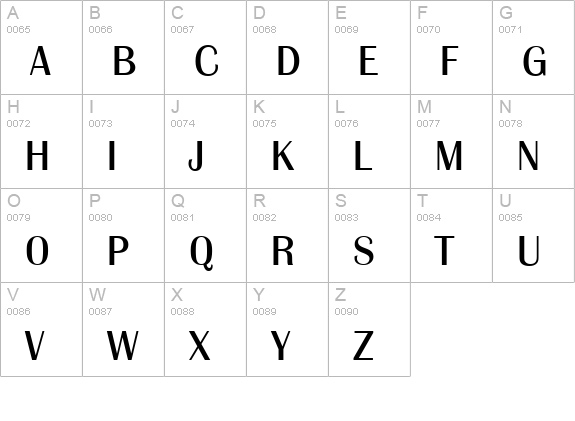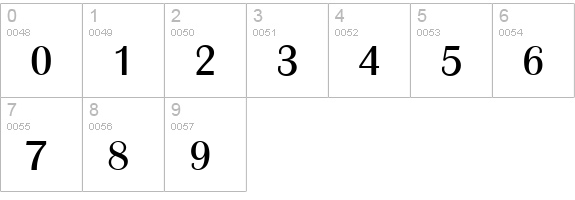
GrenobleSerial-Regular Font Details
GrenobleSerial-Regular is the standard, neutral variant in the GrenobleSerial typeface family \xE2\x80\x94 well suited to general body text, paragraphs, and standard typographic work.
GrenobleSerial-Regular is a stylish and versatile font that exudes modernity and sophistication. With its clean lines and contemporary aesthetic, this font is perfect for a wide range of design projects, from branding to editorial design. The sleek and elegant letterforms of GrenobleSerial-Regular add a touch of class to any composition, making it a popular choice among designers looking to elevate their work. This font is not only aesthetically pleasing, but also highly legible, making it suitable for a variety of applications. Whether you're designing a logo, creating a poster, or working on a website, GrenobleSerial-Regular is sure to make a statement. Best of all, GrenobleSerial-Regular is available for free download at FontsMarket.com. This means that you can start using this fantastic font in your projects right away, without having to worry about any licensing fees. Don't miss out on the opportunity to enhance your designs with the timeless elegance of GrenobleSerial-Regular. Download it now and take your work to the next level!